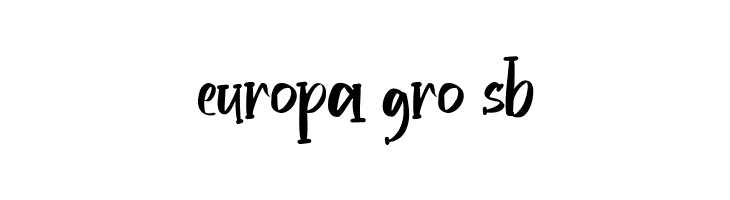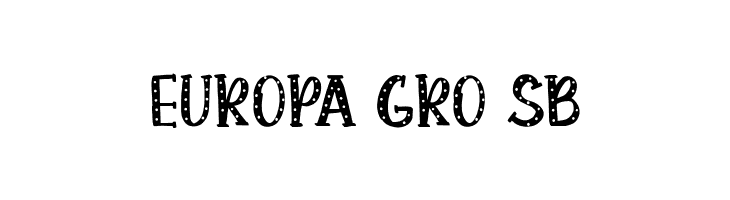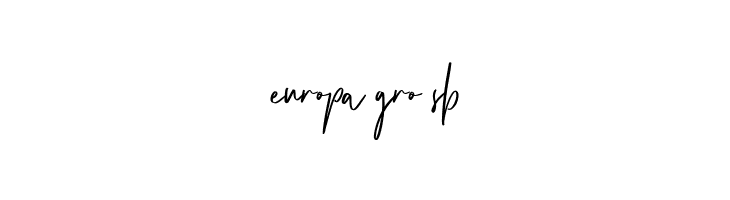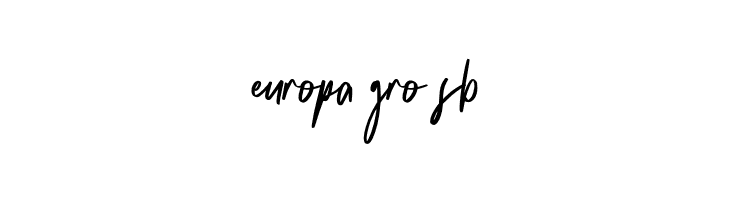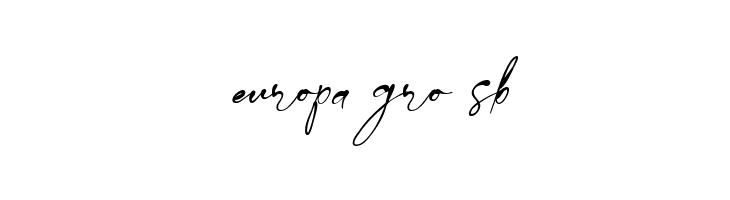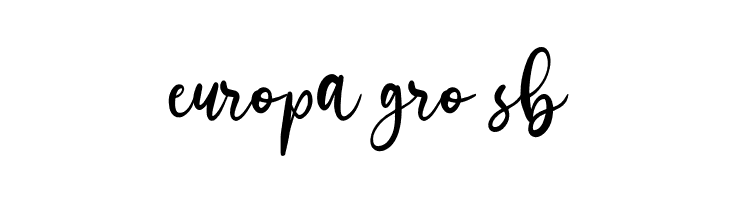
Kendrick Font
A dynamic and expressive handwritten font with fluid cursive letterforms.
Polkadot Font
A playful, polka-dotted decorative font with a whimsical style.
foolish Regular Font
A playful, informal handwritten font with smooth, flowing lines.
Amigdala Font
A bold, dynamic script font with a handwritten feel and elegant curves.
Angelinas Font
A cursive, handwritten font with elegant, flowing strokes.
Bentley Font
A lively, expressive script font with fluid, dynamic strokes and a modern aesthetic.
Happy Bright Font
A playful, handwritten-style font with bold, irregular strokes.
Wonder Font
A bold, geometric font with sharp, angular edges and a modern, edgy style.
hello berlin Font
A playful, bold handwritten font with dynamic strokes and a casual style.
Bentley Font
A fluid and elegant handwritten font with smooth curves and flowing lines.
Nomad Font
A playful and elegant script font with a handwritten feel.
barely Font
A playful and elegant script font with flowing, cursive letterforms.
Valentime Font
A charming and fluid script font with elegant, flowing lines and smooth curves.
Mellow Yellow Regular Font
A playful, handwritten font with smooth, flowing lines and a casual style.
Bondie Font
A bold, playful handwritten font with dynamic strokes and a casual style.
kindly late Regular Font
A playful, handwritten font with smooth curves and a friendly appearance.
Ghostly Font
A playful, hand-drawn font with whimsical, uneven strokes.
LEMONPIE Font
A bold, energetic script font with fluid strokes and a playful style.
Fatigod Font
A dynamic, cursive font with fluid, connected strokes and elegant style.